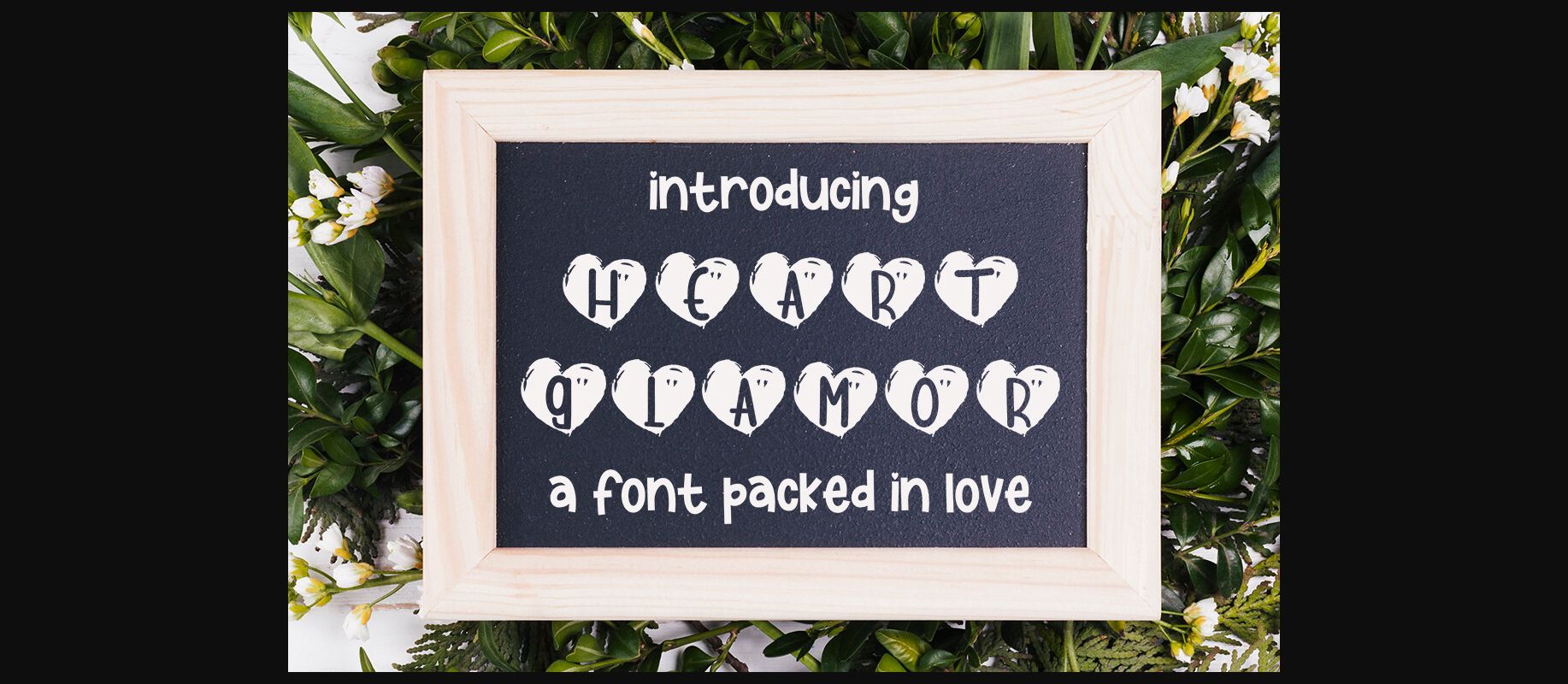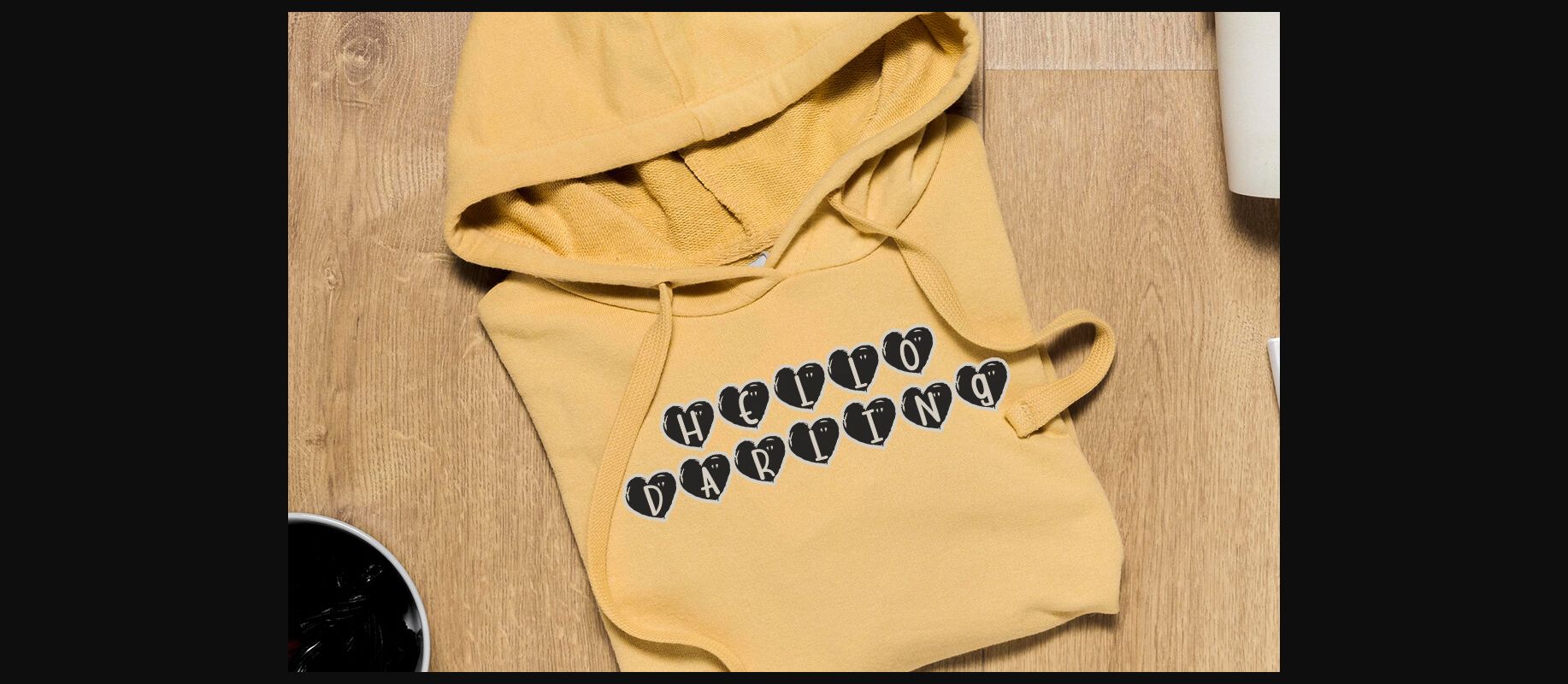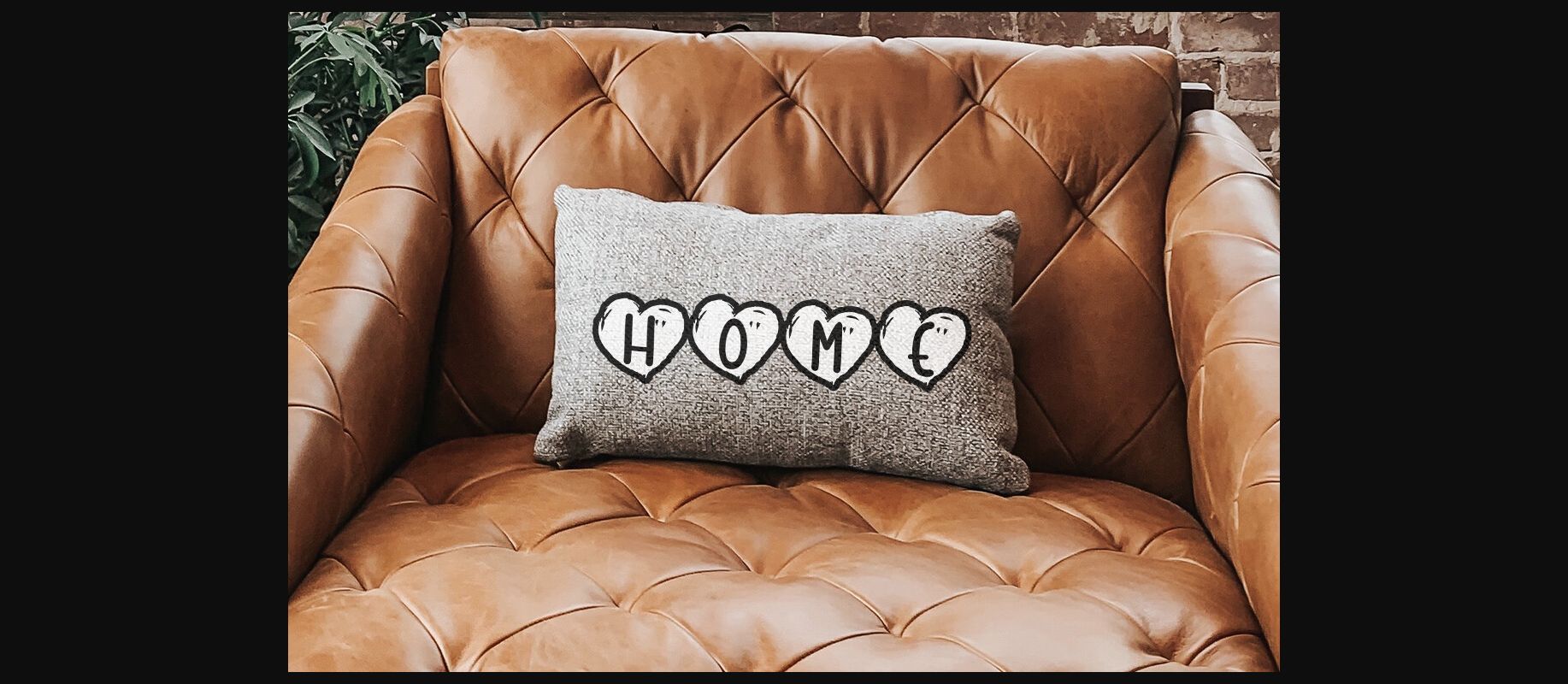
About Heart Glamor Font
Introducing the Heart Glamor font, which is a font with a sweet love look and luxurious characters. Heart Glamor can be used for various types of design needs such as branding materials, social media, quotes, invitations, business cards, film covers, and more.